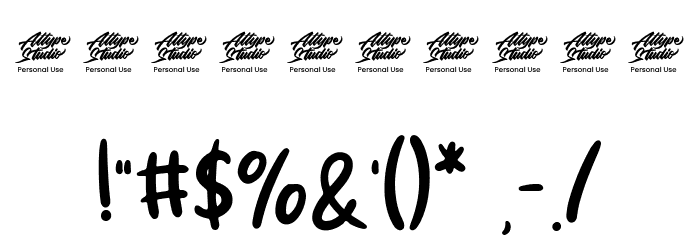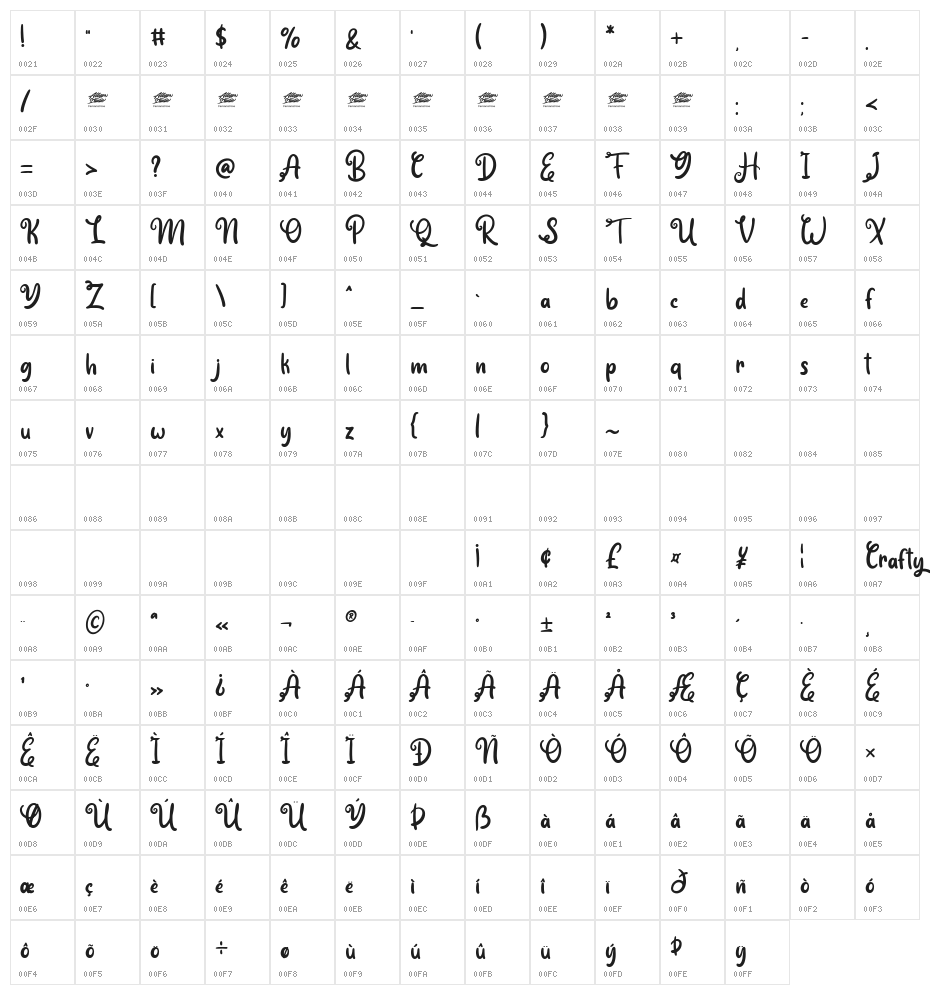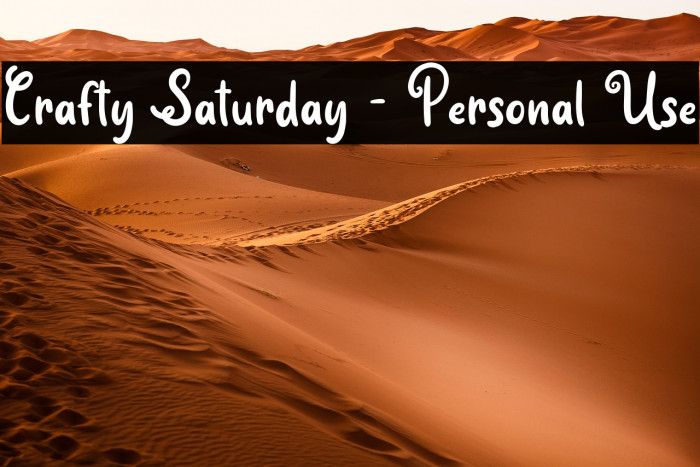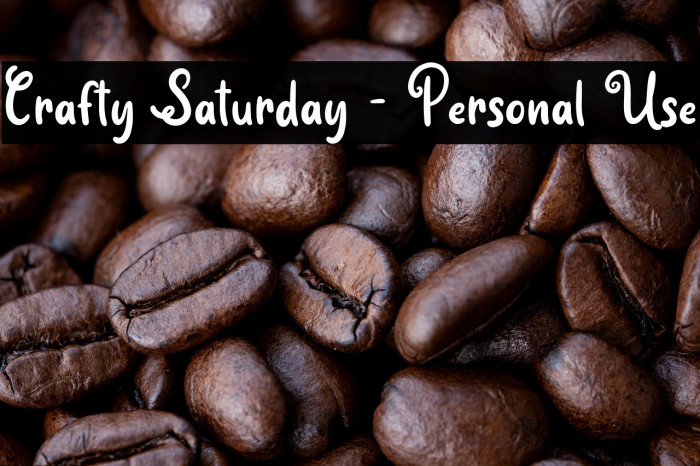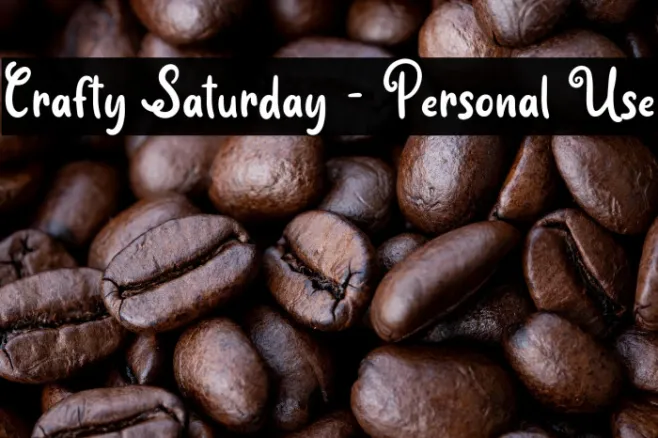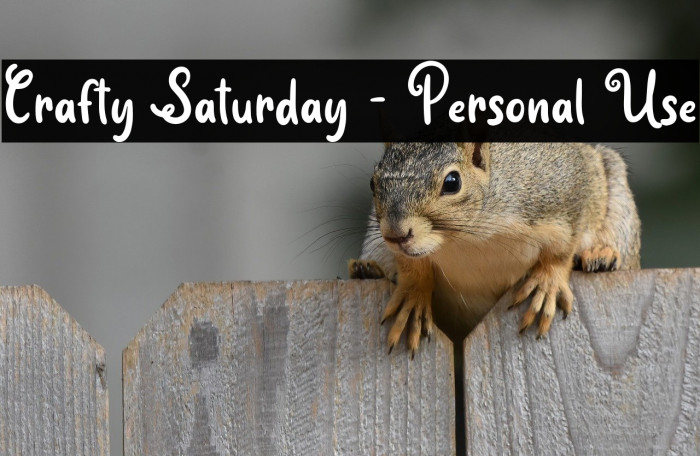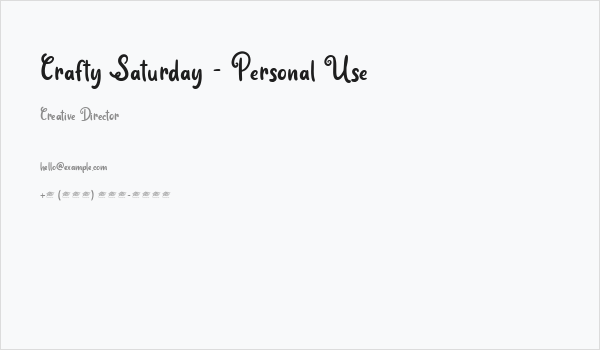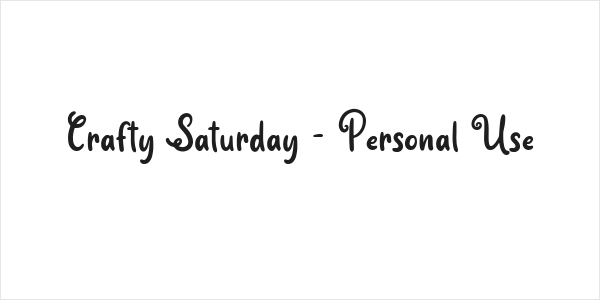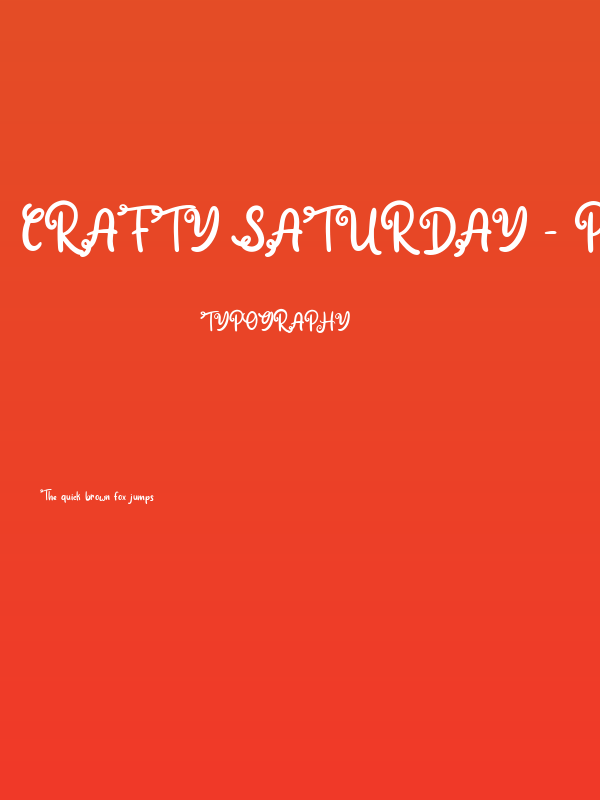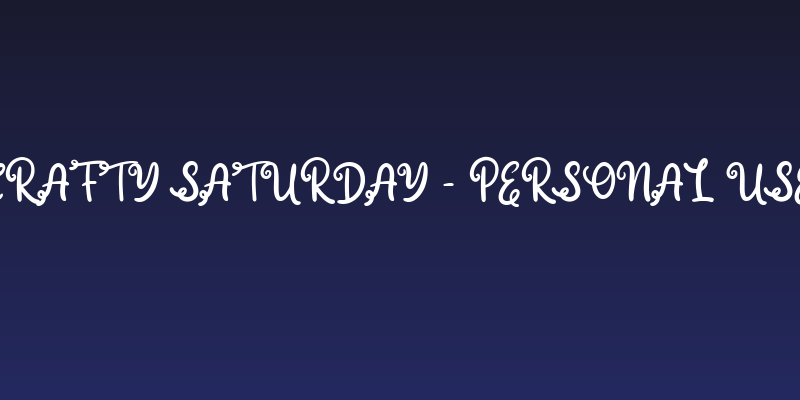
Crafty Saturday - Personal Use Font
Crafty Saturday - Personal Use Description
This playful and whimsical font features a handwritten style with a lively and energetic flair. The uppercase letters are bold and curvaceous, with unique embellishments that add a touch of creativity and fun. The lowercase letters maintain a consistent flow, complementing the uppercase with their rounded and smooth forms. The numerals and special characters are crafted with the same playful spirit, making them perfect for adding a personal touch to any design. The font's overall appearance is both friendly and approachable, making it ideal for projects that require a casual and inviting feel.